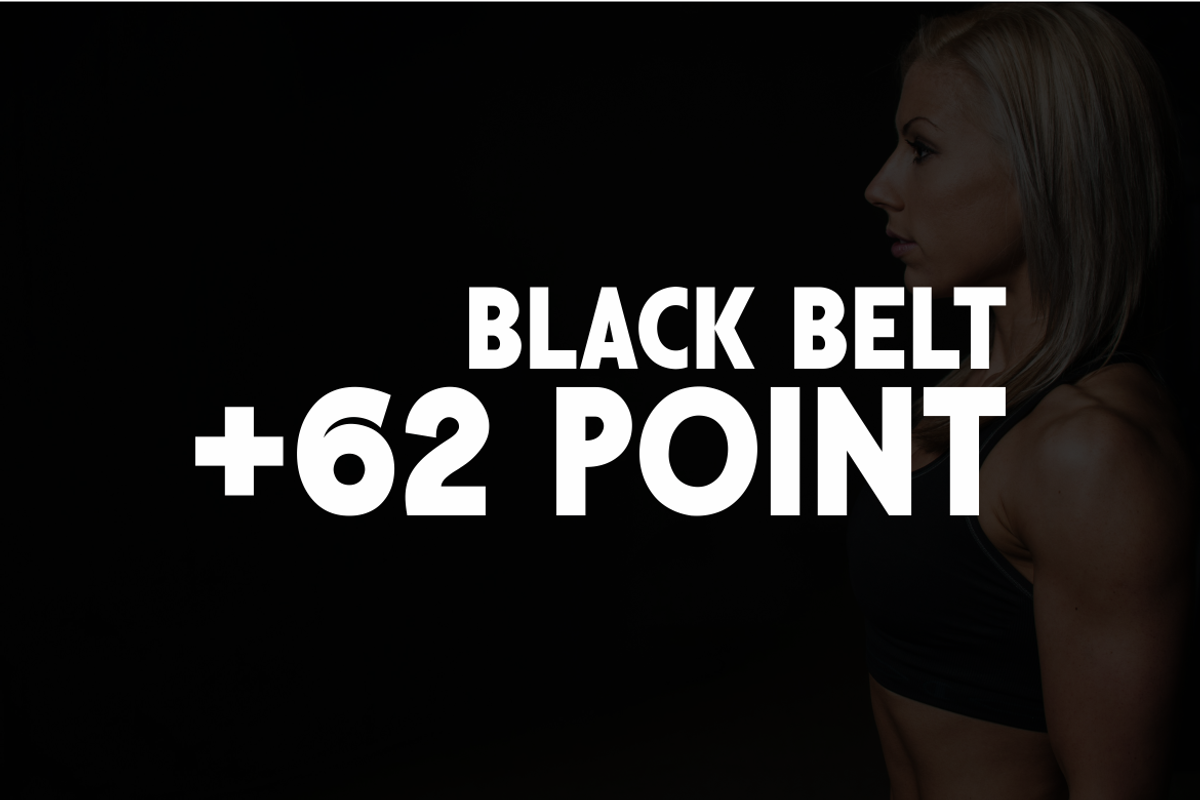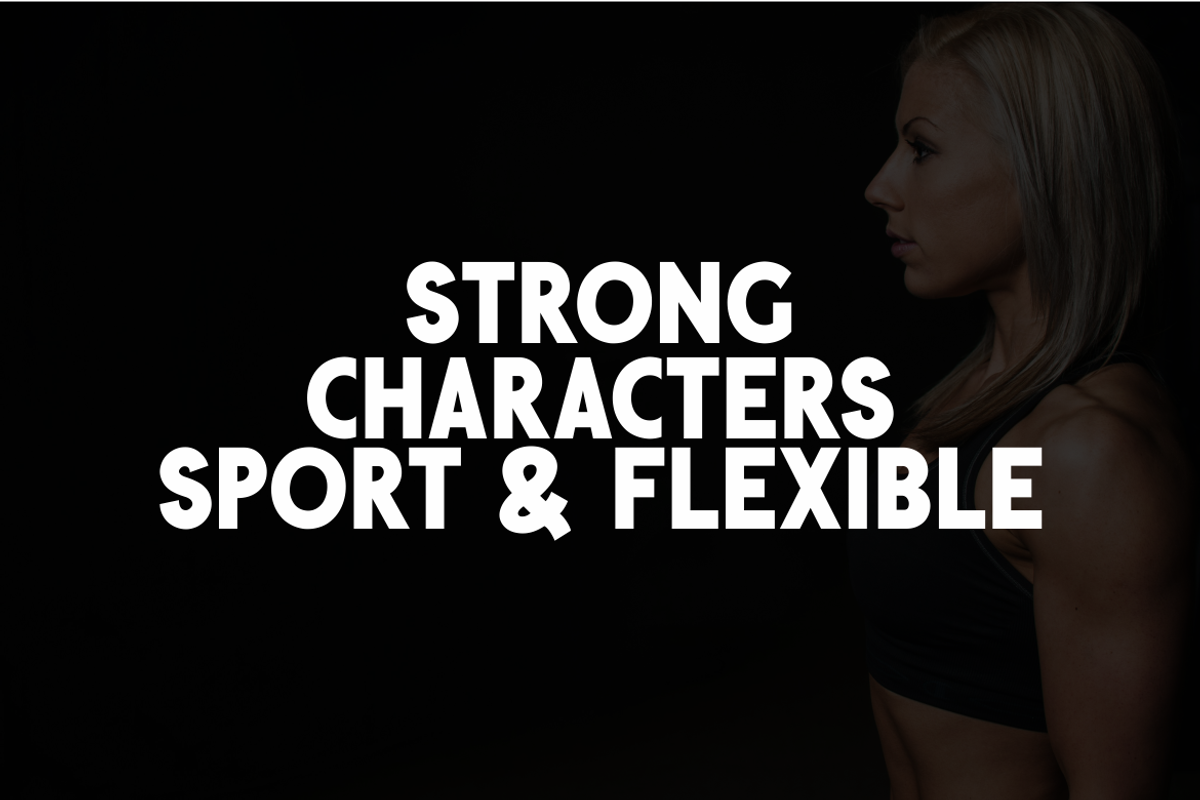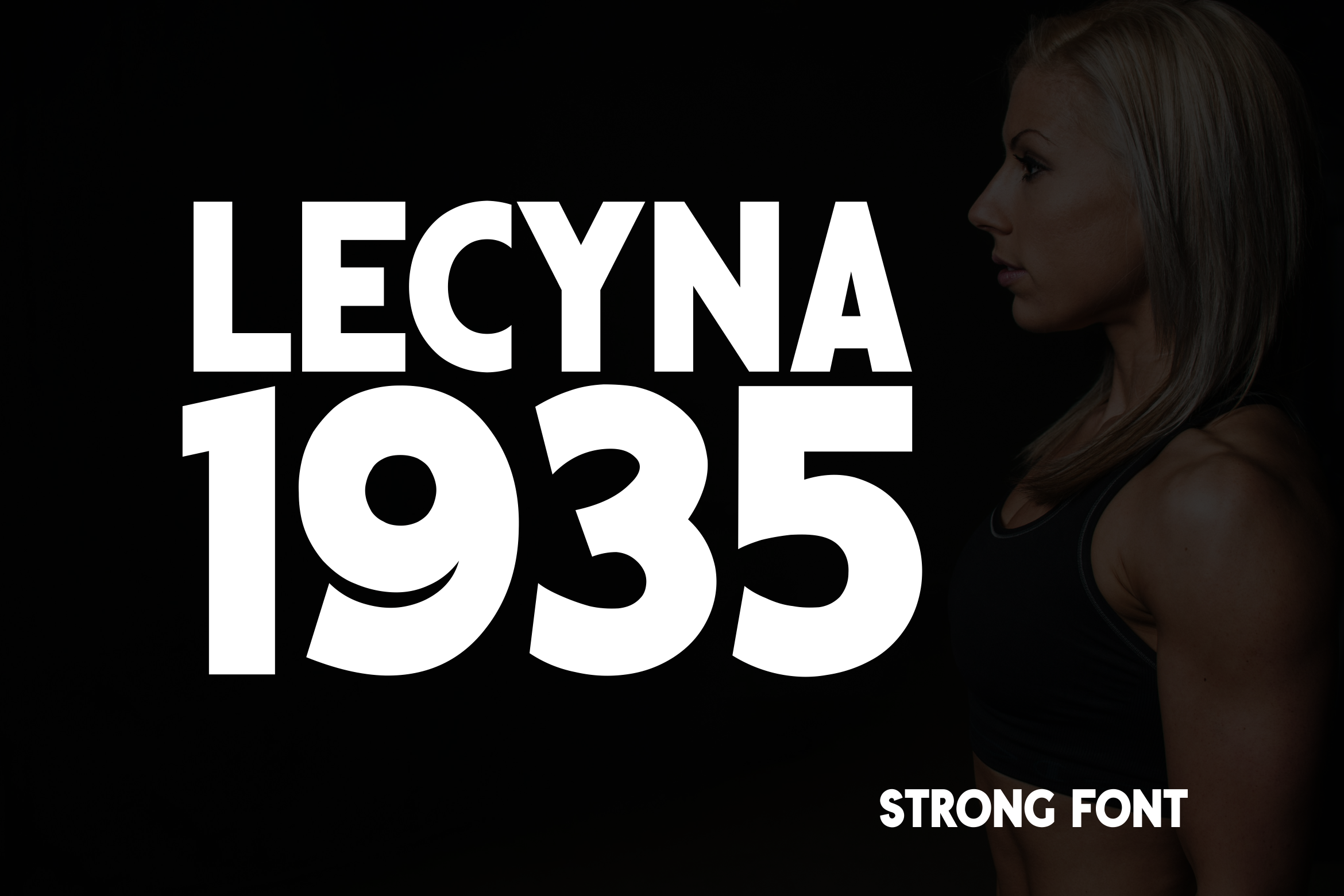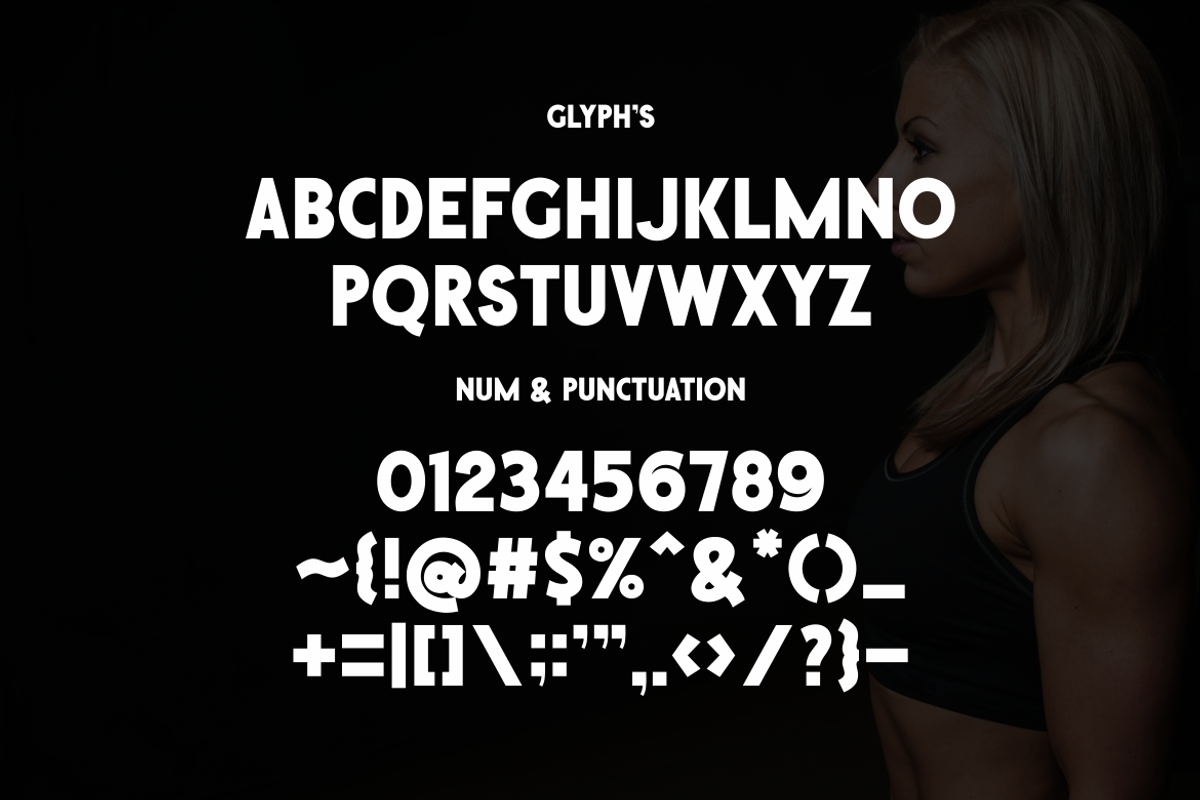
Lecyna 1935 - Strong Font
Introducing Lecyna 1935 – a robust font brimming with vigor and dynamism. Ideal for creating an energetic ambiance in sporting domains and gyms, it also thrives in any situation demanding a hard, bold aesthetic. Lecyna 1935 stands out for its commanding style, making it a perfect choice for instances that require an extra dose of sporty energy. Unleash potency, stamina, and resilience with the distinct look and feel of this typeface.